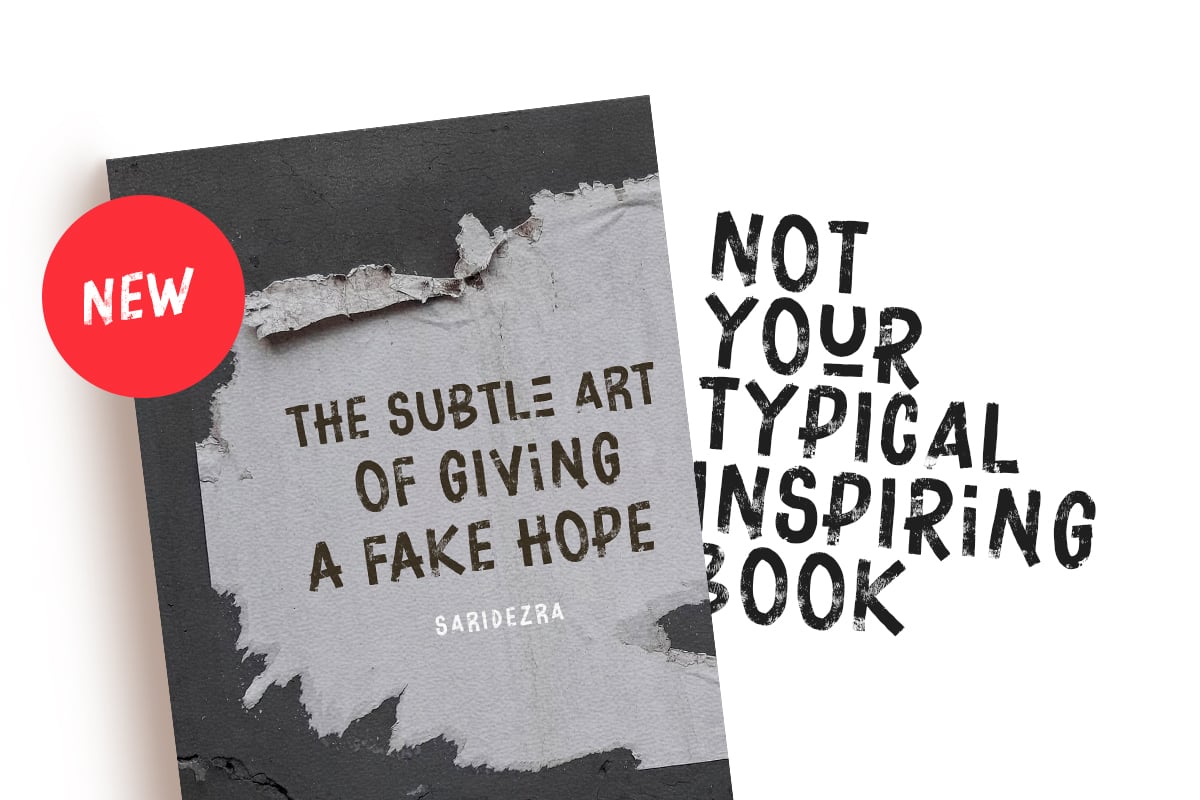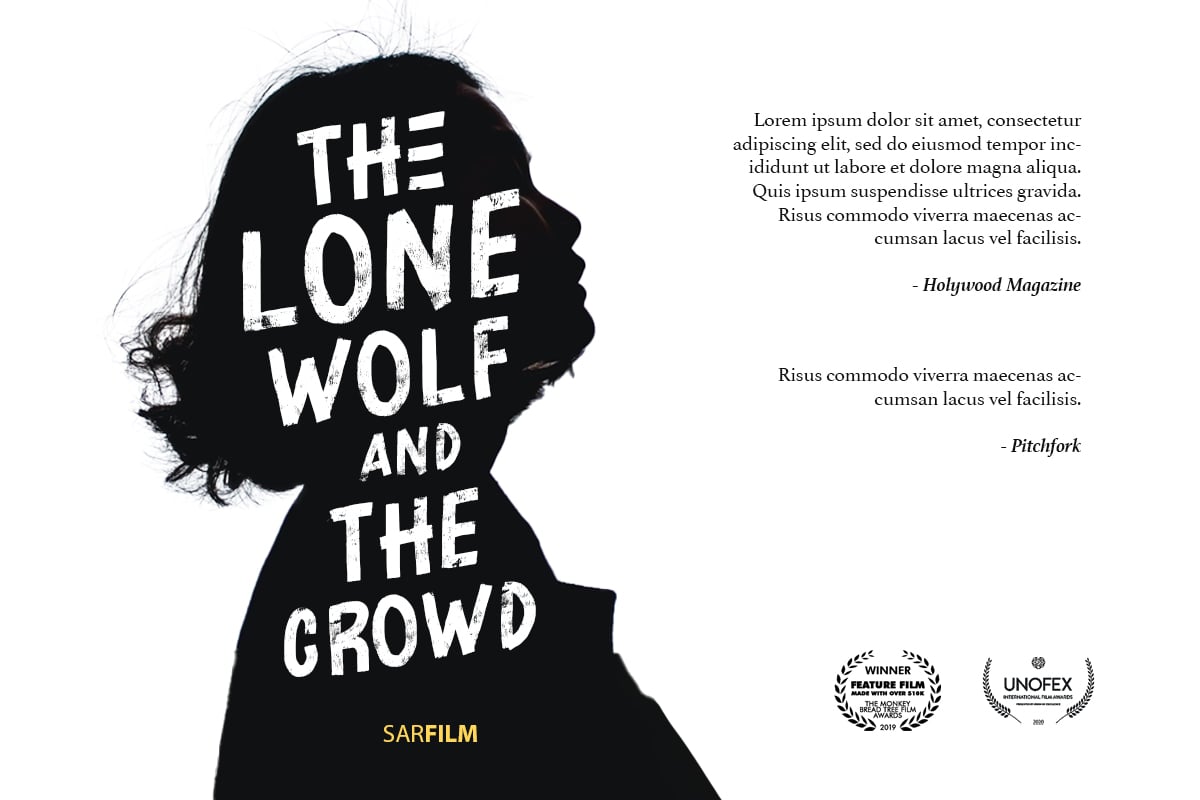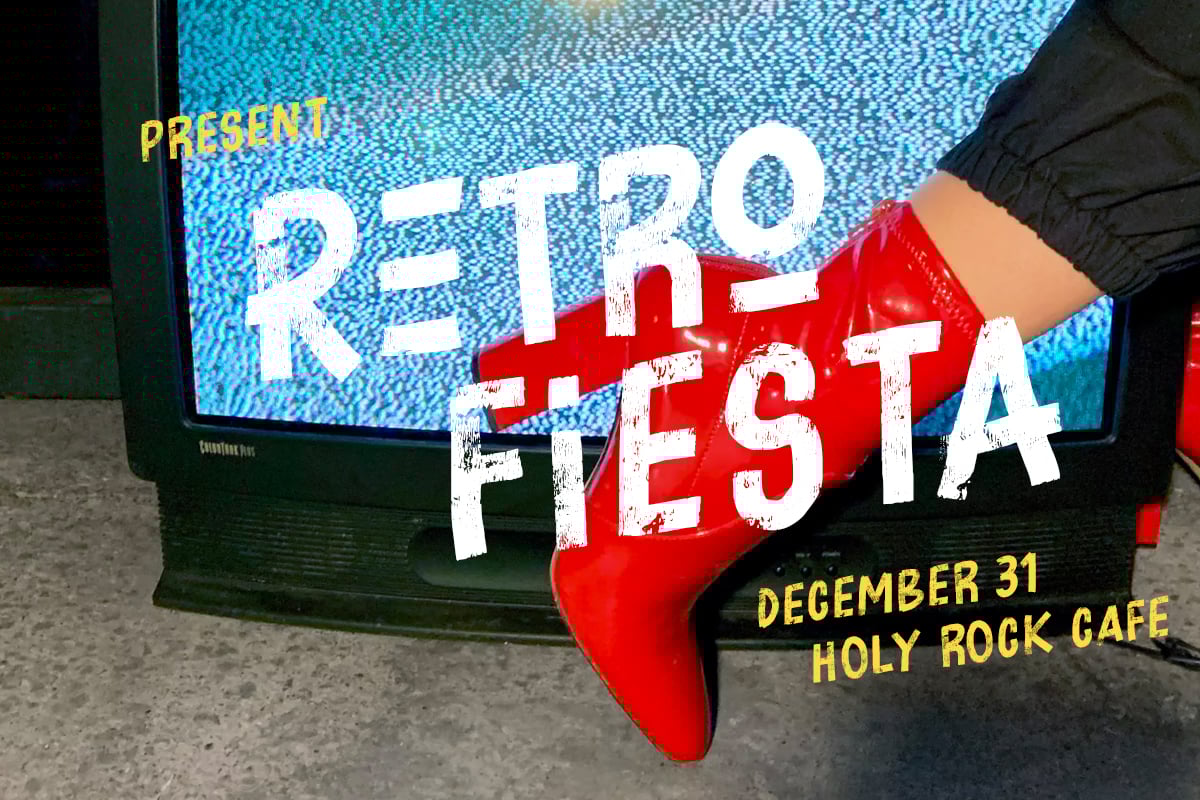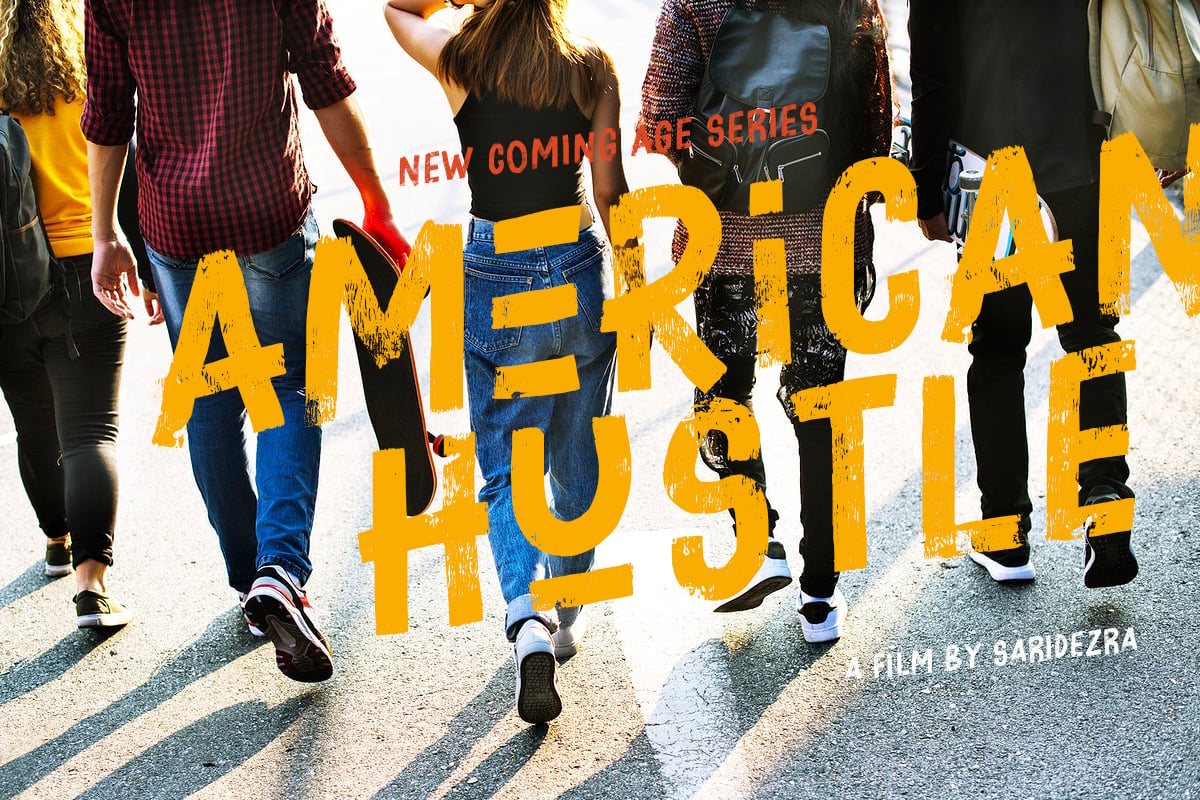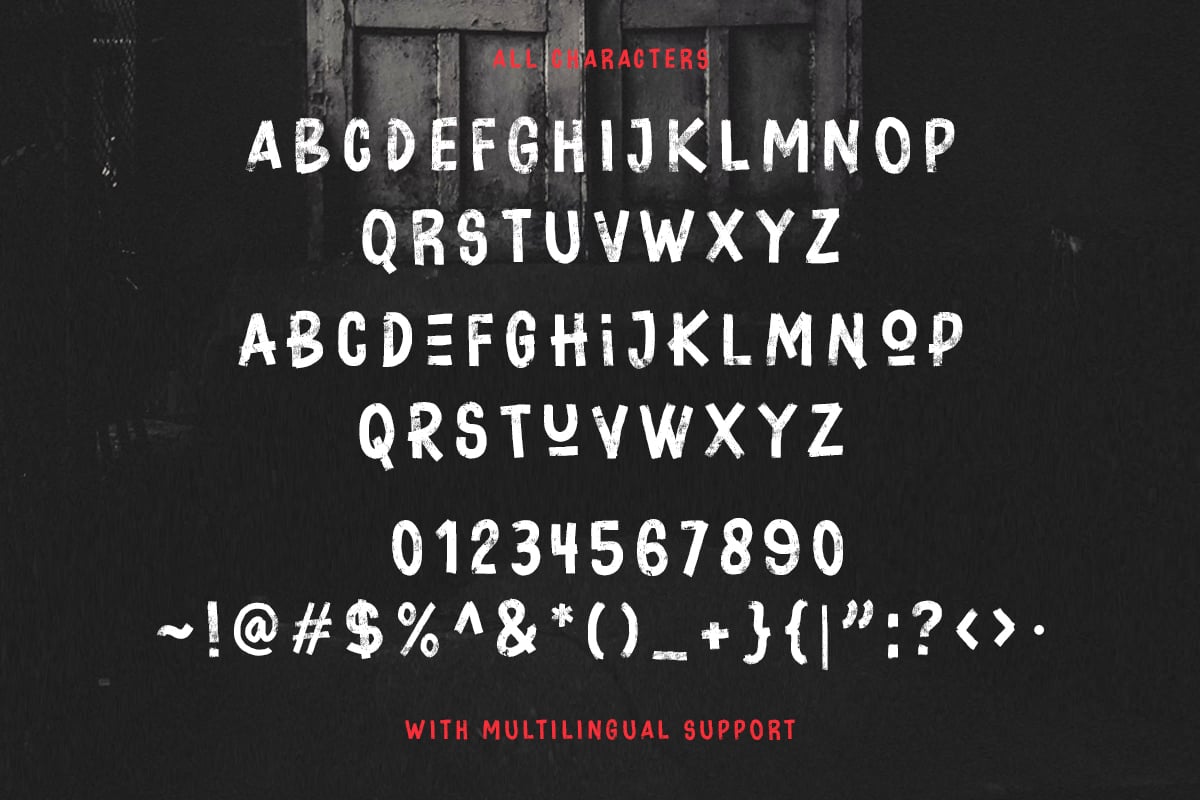
Broken Drive – Grunge Display Font
Introducing, Broken Drive, a grunge display font!
Broken Drive is a grunge sans based font that have natural textures. This textured font will make your poster and presentations looks more bold and stand out! You can use this font for any purpose, especially for movie poster. You can combine the uppercase and lowercase to make your design more natural and handmade. This font also support multilingual.